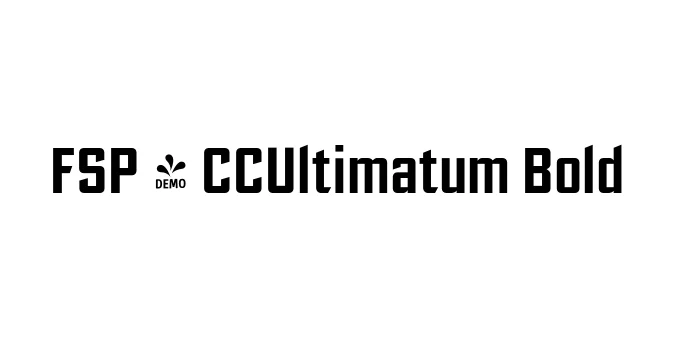
FSP - CCUltimatum Bold
Designed by Jörg Knüppel (Creative Characters)
FSP - CCUltimatum Bold is a core component of the wider CC Ultimatum family, a series designed to provide a high-tech, geometric aesthetic for modern design challenges. Developed by Creative Characters, this typeface focuses on structural precision and architectural clarity. Its clean, square-proportioned characters evoke a sense of digital efficiency and industrial strength, making it a quintessential choice for projects that require a contemporary, forward-thinking visual language.
The Bold weight is particularly effective for high-impact communication, offering a robust presence that maintains legibility even in complex layouts. Since its release, CC Ultimatum has been widely adopted in the technology and automotive sectors for its ability to convey innovation and reliability. The font's versatile nature allows it to bridge the gap between minimalist UI design and authoritative print media, securing its place as a staple in the toolkit of professional graphic designers.
FSP - CCUltimatum Bold Best Uses
Perfect for creating strong, tech-oriented logos and branding materials.
Highly effective for bold website headers and UI elements in digital dashboards.
The heavy weight makes it ideal for large-scale advertising and event posters.
Excellent for title sequences in science fiction or technology-themed media.